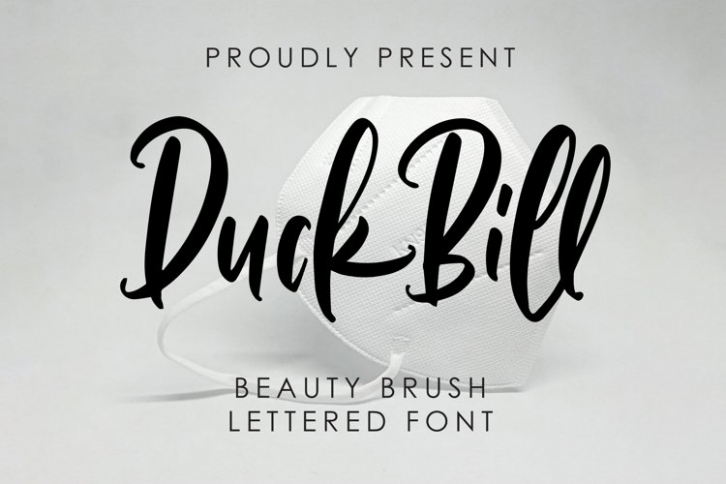
Duck Bill is a gorgeous font that was realeased on October 2, 2021. The font can be used in many style contexts and design environments. Perfect for invitations, magazines, websites, logos, and more! It was designed by plusstore and the file size is 7.60 MB. Thanks for checking out this font!